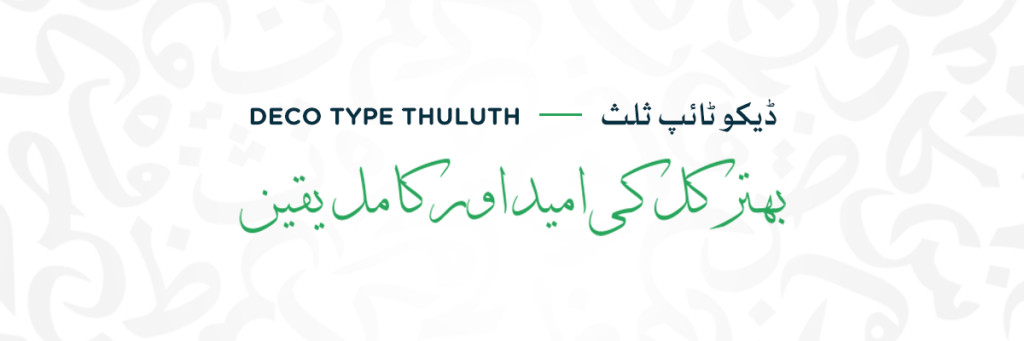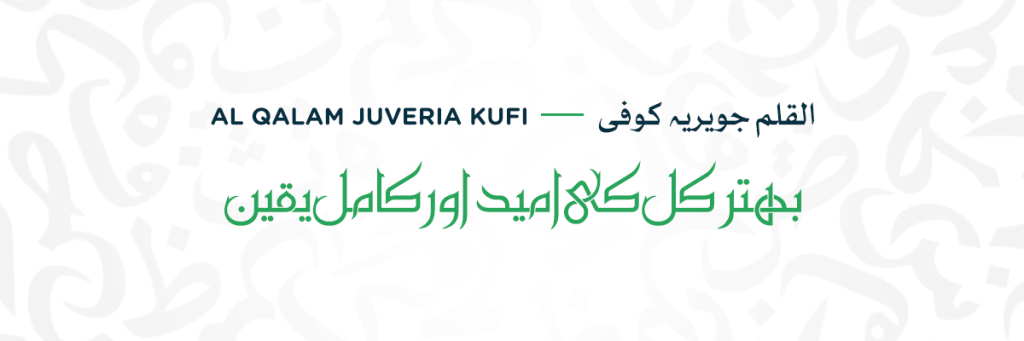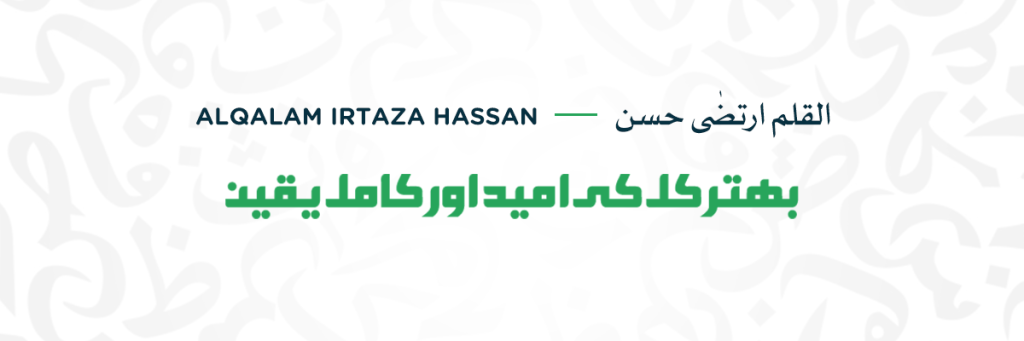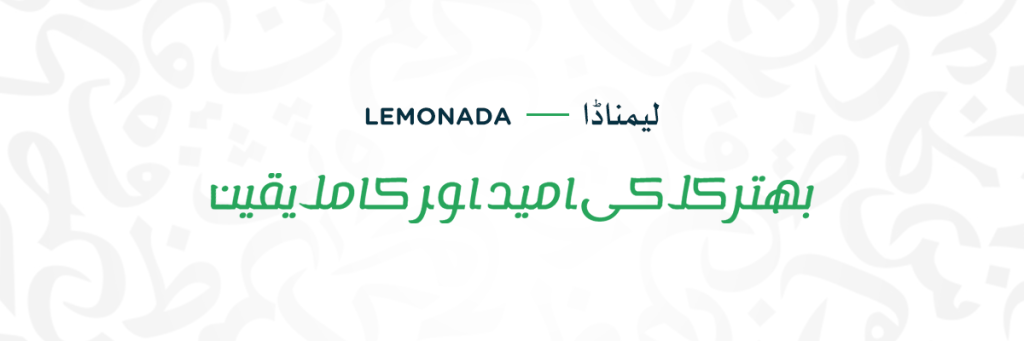
Social media lives on eye-catching posts that grab viewer’s attention. But did you know the font you choose can also play a part? Fonts can become part of your brand identity. A consistent font choice across your social media platforms increases brand recognition and builds trust with your audience. That is how much a font affects your viewers, so when it comes to Urdu script, the role of a display font becomes crucial more than ever. If your target audience sees an ad in their mother tongue, it fosters a unique connection. That sense of association they feel leads to high reach and business growth over the Internet.
Fonts can even become part of your brand, helping people recognize you across social media. However, one thing to consider is their readability, as choosing the most appealing and decorative font can result in low legibility. So, whatever font you go for must have certain characteristics to brighten up your social media posts and displays. In this blog post, we are going to present a font that you can use for creating engaging posts and content, but before that, what are a few things a font must have to be considered as the best typeface? So, keep on reading and learning. Also, learn more about leveraging Urdu Typography in Branding.
Understanding the real purpose and meaning of your message is key to creating an engaging post or ad for your business or brand. Here are a few characteristics a font for social media posts should have.
Before we start exploring each font, it is best to have a brief encounter for your better understanding. Here’s a table providing an overview of the key details of each font, including the name, designer, different font categories and a brief description of the font’s appearance. Moreover look into some Timeless Urdu Fonts to add a touch of sophistication into your artworks.
| No. | Font Name | Font Designer | Category | Font Appearance |
|---|---|---|---|---|
| 1 | Sarem Habib | Sarem Muhammad Bux Kalady | Naskh- Calligraphic | Bold and curvy structure with thin, cursive starts and ends and thick, bold middles; elegant, ink-writing feel. |
| 2 | AlQalam Alvi Nastaleeq | Amjad Hussain Alvi, Shakir ul Qadree | Regular, Nastaleeq | Graceful with even spacing, rounded corners, slightly cursive edges, moderate thickness, and contrasting strokes. |
| 3 | AlQalam Mujeeb | AlQalam Font Family | Cartoon-style, bubbly, bold | Cartoon-style, bubbly, thick and rounded letters, uneven lines, hand-drawn feel, cheerful and playful vibe. |
| 4 | AlQalam Irtaza Hassan | Muhammad Ishtiaq Ali Attari | Bold, tech font, Kufic | Bold geometric, inspired by Naskh and Kufic script, thick constant stroke, square-like elements, strong impression. |
| 5 | UL Amjad Outline Shaded | Urdu Life | 3D, Hollow, Stencil, shaded font | Modern stencil with hollow interior with shade, thin cursive terminals, delicate strokes, highly cursive look. |
| 6 | Lemonada | Mohamed Gaber, Eduardo Tunni | Serif, decorative | Rounded shapes, moderate contrast, friendly and approachable, well-balanced letterforms, consistent spacing. |
| 7 | Deco Type Thuluth | Mojtaba Kia | Sharp, slanted, Qalam writing | Blends bold strokes with decorative elements, thick strokes, delicate lines, clean lines, rounded curves. |
| 8 | Al Qalam Juveria Kufi | Muhammad Ishtiaq Ali Attari | Ornamental, Islamic, Kufic | Slight curves, sharp corners, intricate design, moderate legibility, decorative appeal. |
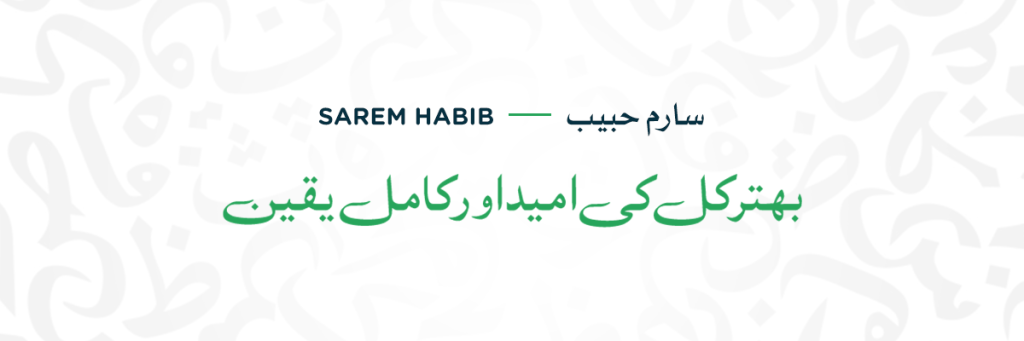
Sarem Habib is a wide and calligraphic social media urdu font, designed by Sarem Muhammad Bux Kalady, is a versatile Sindhi font ideal for creating engaging social media posts. Its bold and curvy structure, featuring thin and cursive starts and ends with thick, bold middles, gives the text a unique, ink-writing feel. This font’s elegance and flexibility make it perfect for different design purposes, including personal projects, poetry, and prose in Sindhi, Urdu, and Arabic. It maintains the beauty of Naskh perfectly and with wide, flowing letters, this font adds an artistic impression.
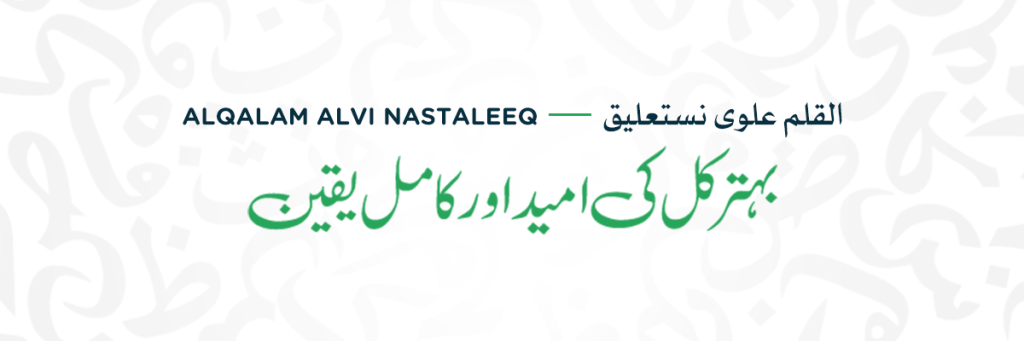
AlQalam Alvi Nastaleeq, created by Amjad Hussain Alvi and Shakir ul Qadree, is a Qalam writing Urdu font that shows grace with its even spacing, rounded corners, and slightly cursive edges. Its high legibility, even at smaller resolutions, makes it ideal for social media posts that need the timeless elegance of Nastaliq script. The moderate thickness and contrasting strokes give it a formal yet appealing appearance. Due to its formal or professional feel, this font can be used for quotes, announcements, and informative posts.
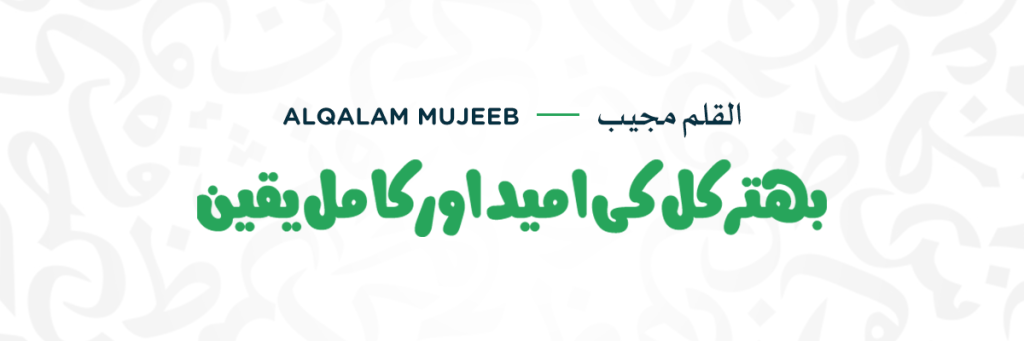
AlQalam Mujeeb is a cartoon-style, bubbly social media Urdu font from the AlQalam font family. Its thick, rounded letters and slightly imperfect lines look like hand-drawn lettering, adding personality and originality. This font’s playful and cheerful vibe makes it a great choice for children’s content, playful branding, and light-hearted social media posts. In spite of the bulging design, this font perfectly maintains readability. Businesses often use such font in recreational posts such as birthdays or some activity announcements to add a sense of liveliness to the text.
AlQalam Irtaza Hassan is a bold social media Urdu font, designed by Muhammad Ishtiaq Ali Attari, is a bold geometric Urdu font inspired by Naskh and Kufic scripts. Its thick, constant stroke and square-like elements create a strong, attention-grabbing look. This font is ideal for bold, creative posts on social media, especially when your brand is about technology or related niches. It offer modern vibe with its symmetrical and geometric lines, perfect for visualizing your message and maintaining the brand’s identity.